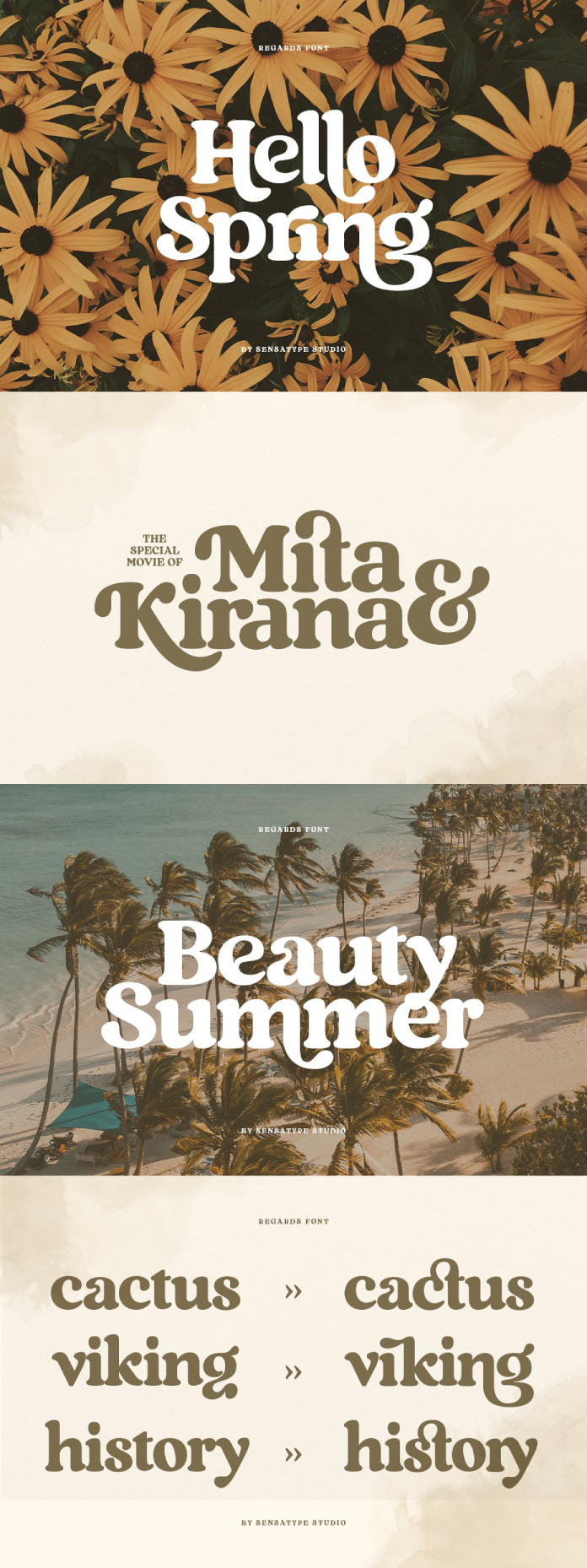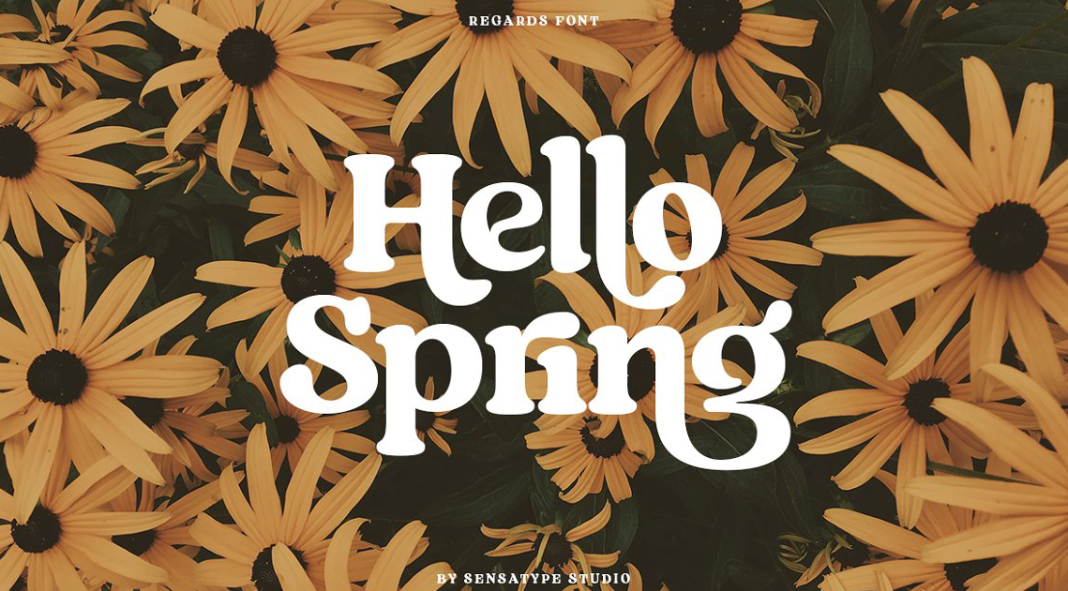
Make a bold impression with the Regards font, a charmingly retro serif typeface with a captivating vintage feel that is creative, unique, and accommodating.
Regards is a perfectly balanced retro font with large, fun-loving serifs. It comes with more than 100 alternate options that can be combined effortlessly for stylish shapes in just seconds. Its moderate contrast level makes it an ideal choice for branding initiatives, logos, marriage designs, or even social media posts. Moreover, this classic display typeface ensures high readability on product packaging labels as well as invitation cards and stationery items – making it suitable for almost any project!